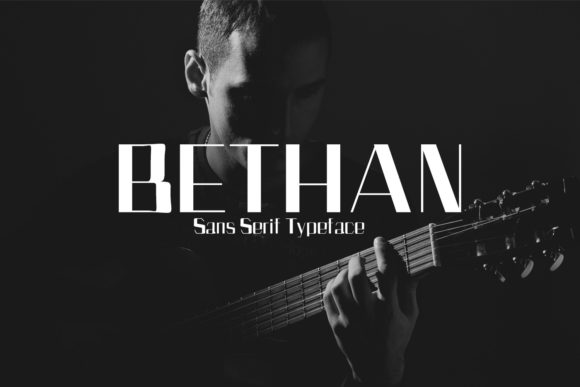
Behold Bethan Family Font, a creation of Creative Tacos, a font that dazzles and captivates! With its cool, modern, and striking appearance, Bethan Family Font is your secret weapon to stand out and make an indelible impression. Bethan Family Font, a sans serif font of note, is a captivating blend of boldness, elegance, and just a hint of playfulness.
Are you seeking a font that is not afraid to make a statement? Look no further! Bethan Family Font is the epitome of confidence and style, projecting an air of expertise and sophistication.
Go ahead, embrace your creative side and let Bethan Family Font be your guide. Its versatility knows no bounds, from sleek and polished logos to captivating headlines and website designs. Unleash your imagination and let the characters dance off the page, entrancing your audience with their unique charm.
With Bethan Family Font, you'll have the power to transform ordinary into extraordinary, leaving a trail of unforgettable impressions wherever you go. Embrace the power of Bethan Family Font, let your creativity soar, and watch as your designs steal the spotlight.